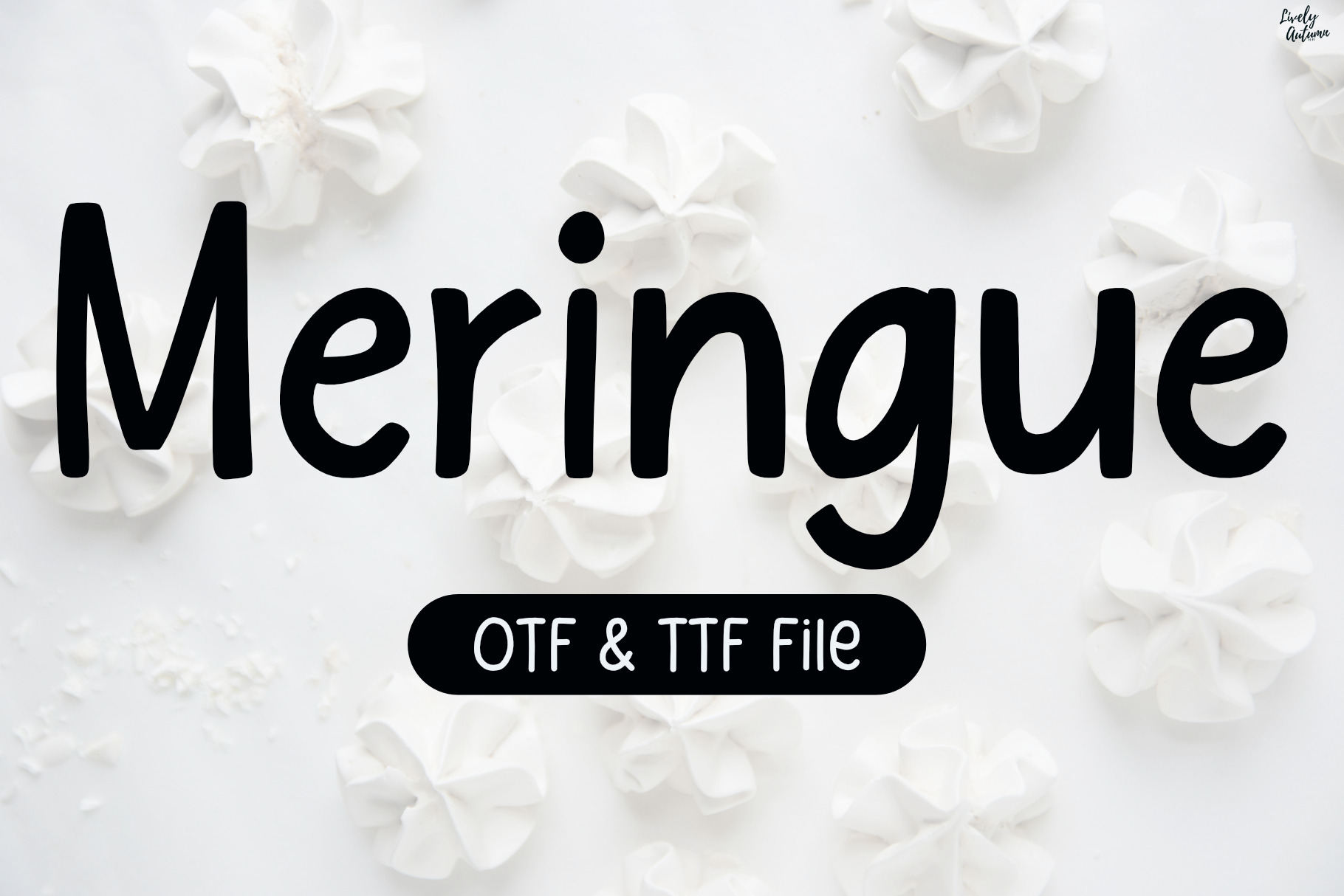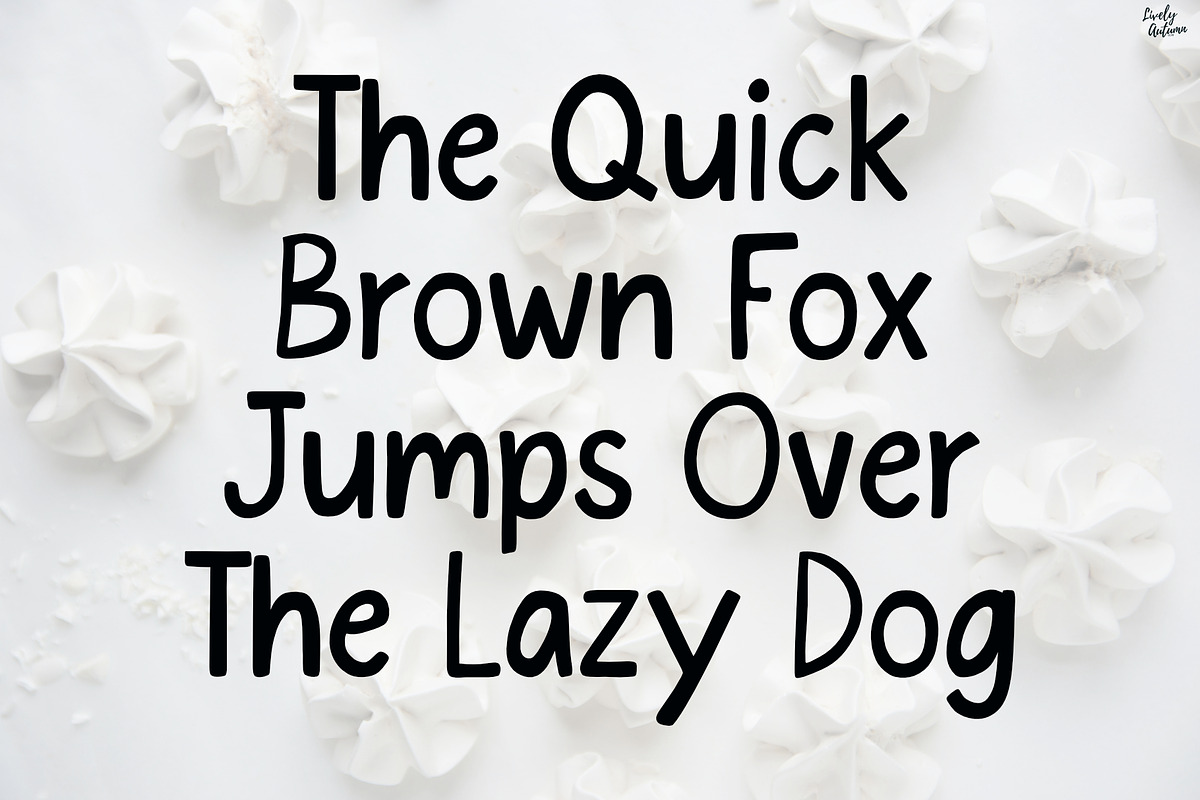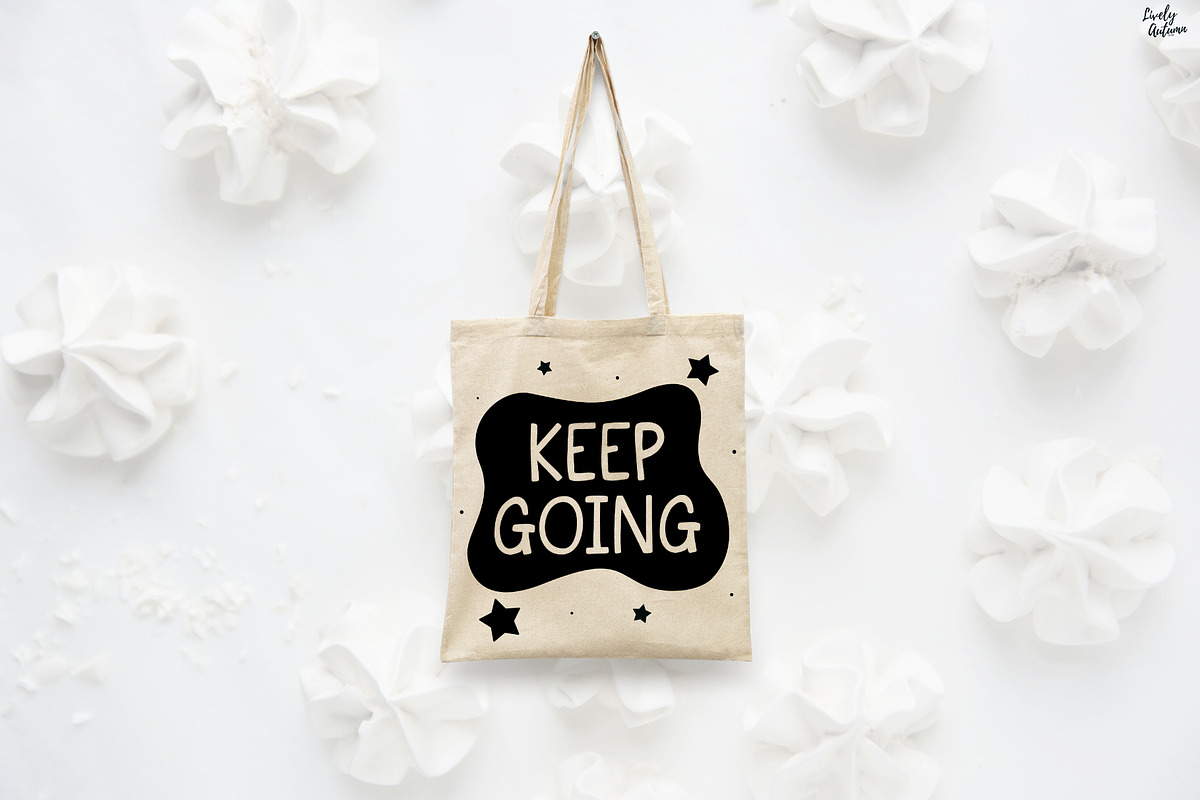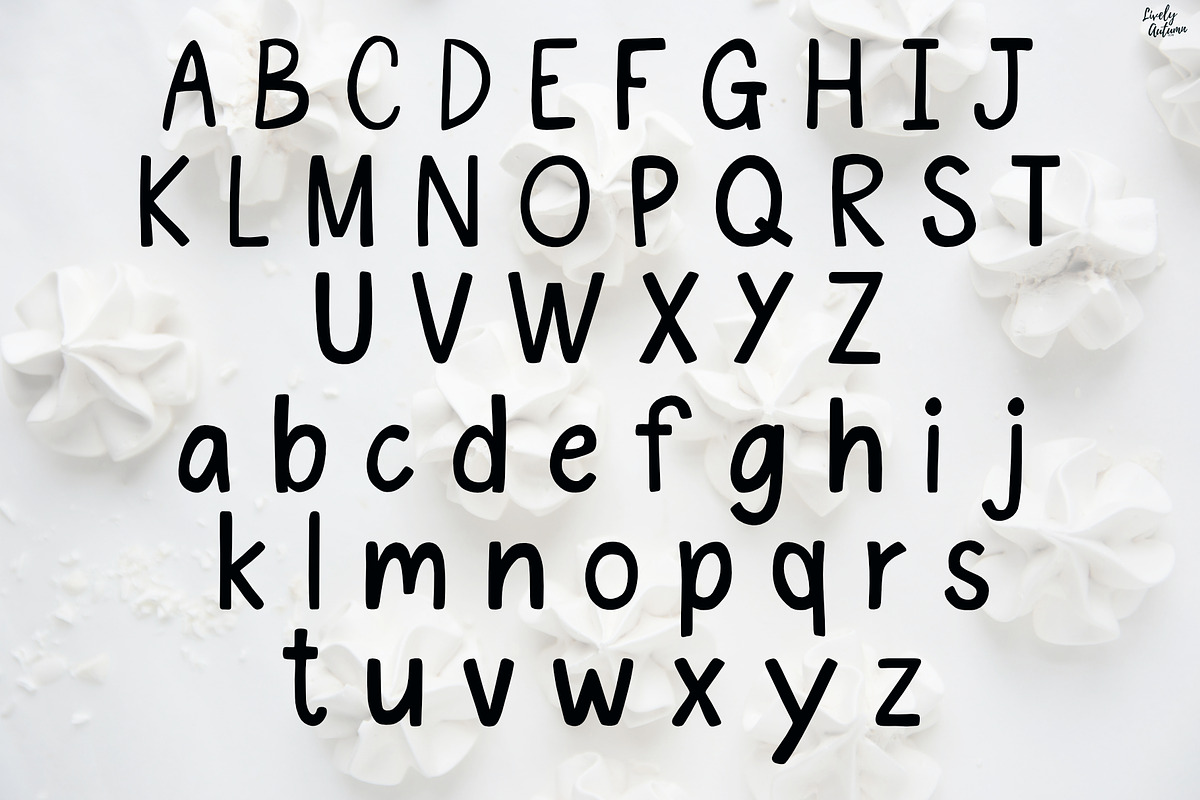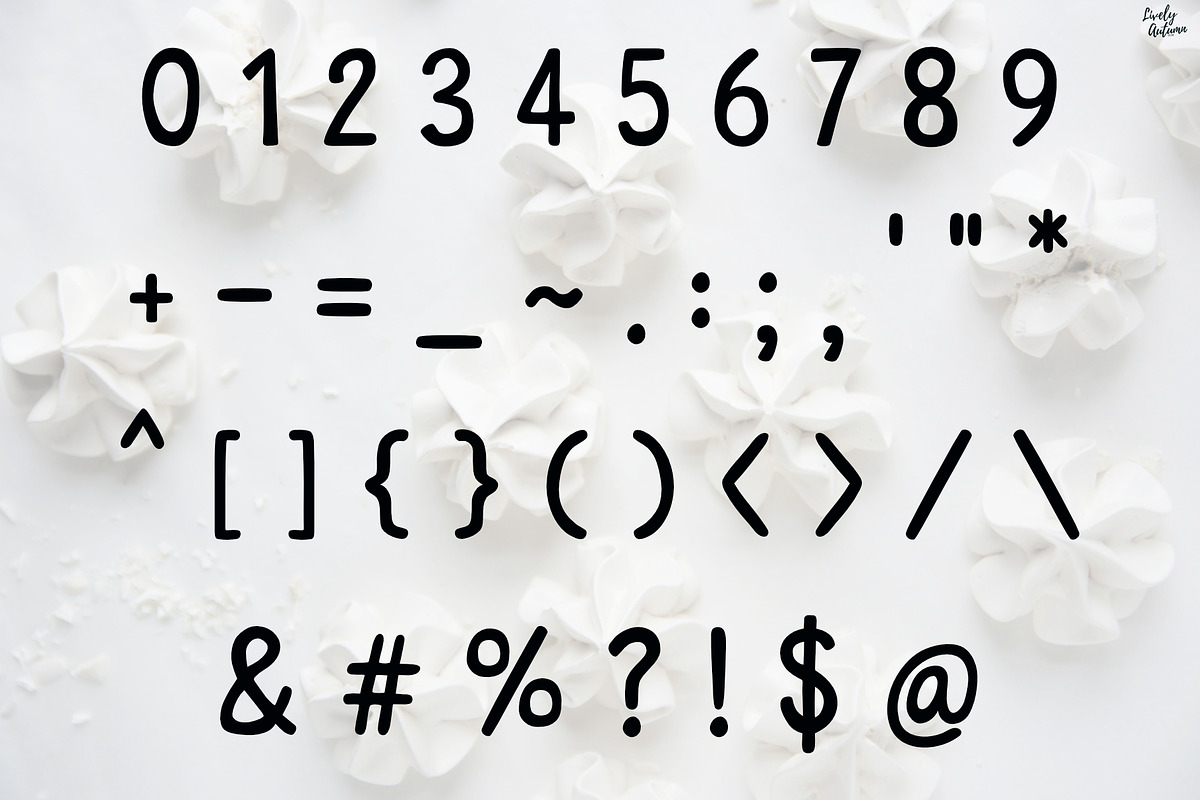
Meringue | Fun Handwritten Font
Meringue is a fun and playful handwritten font. Perfect personal projects and various projects. From invitations to posters, social media graphics, journals, stickers and much more.